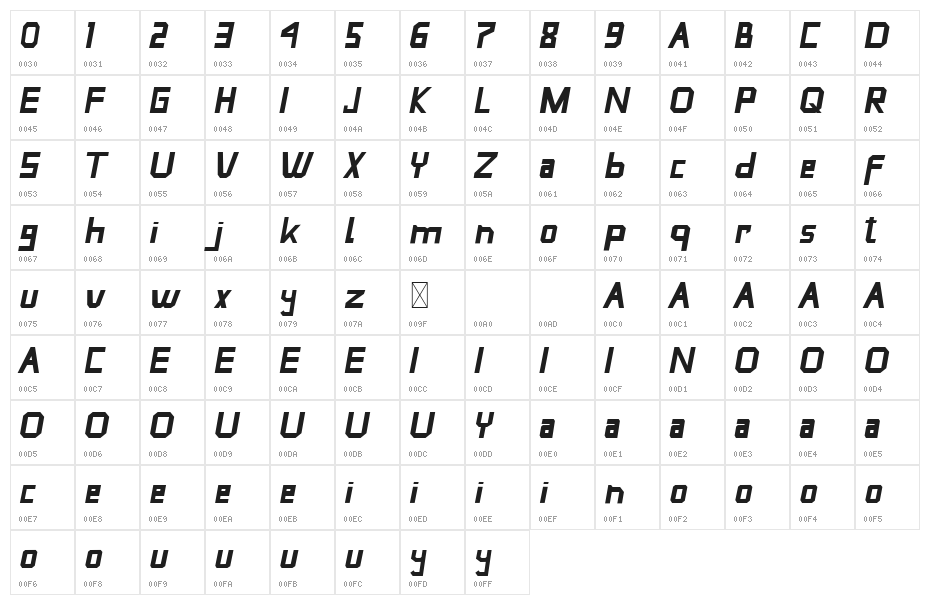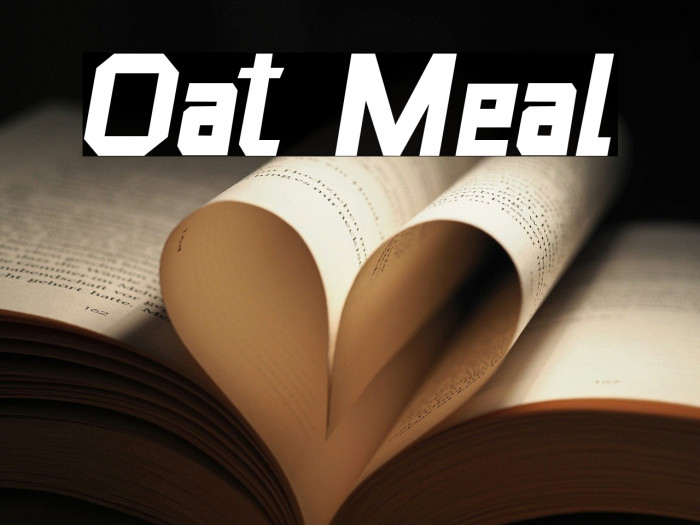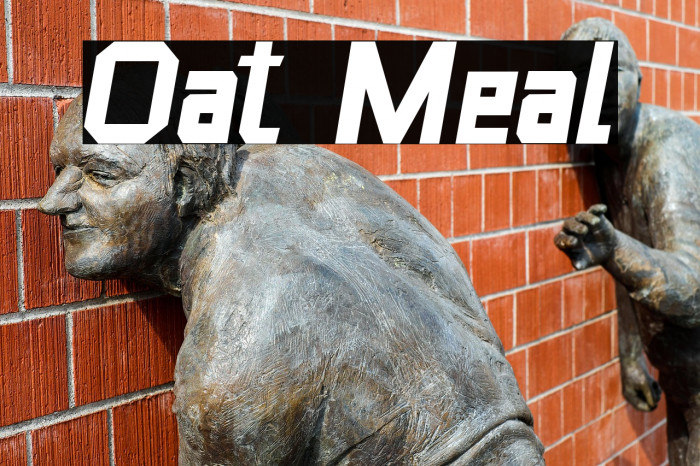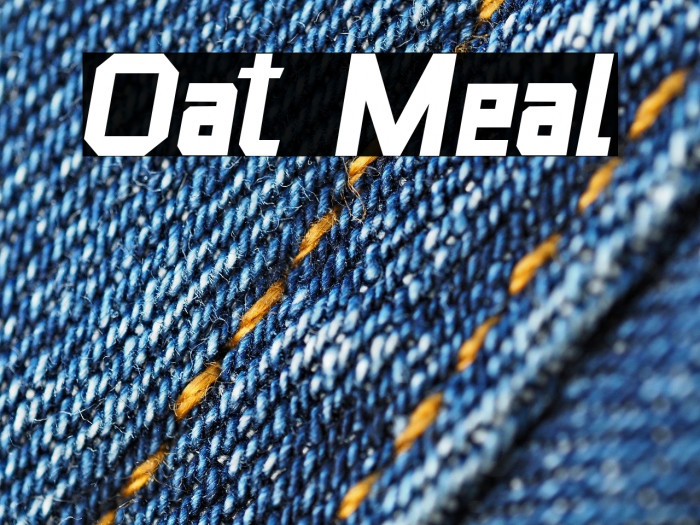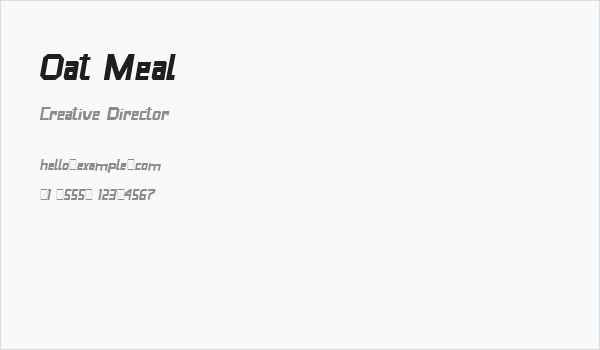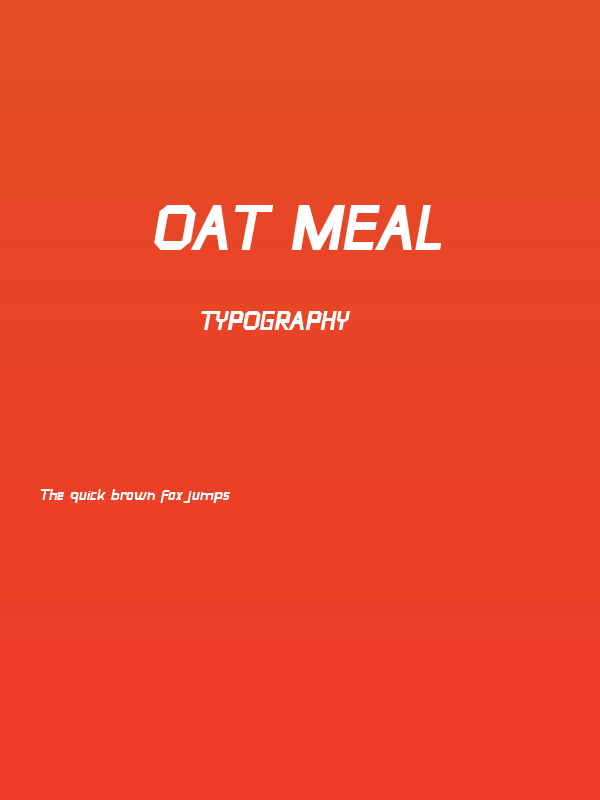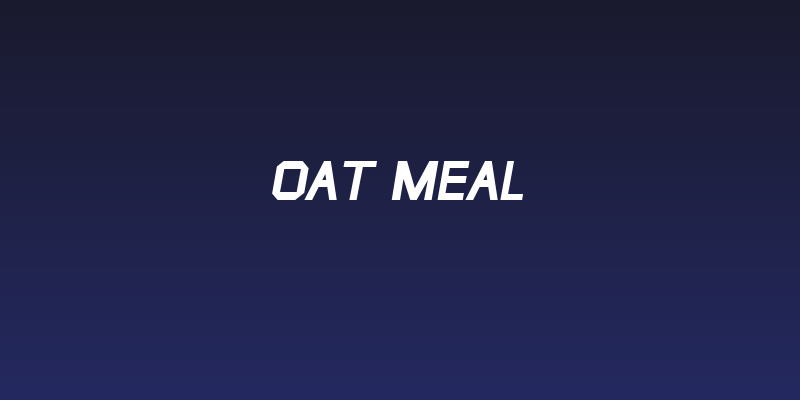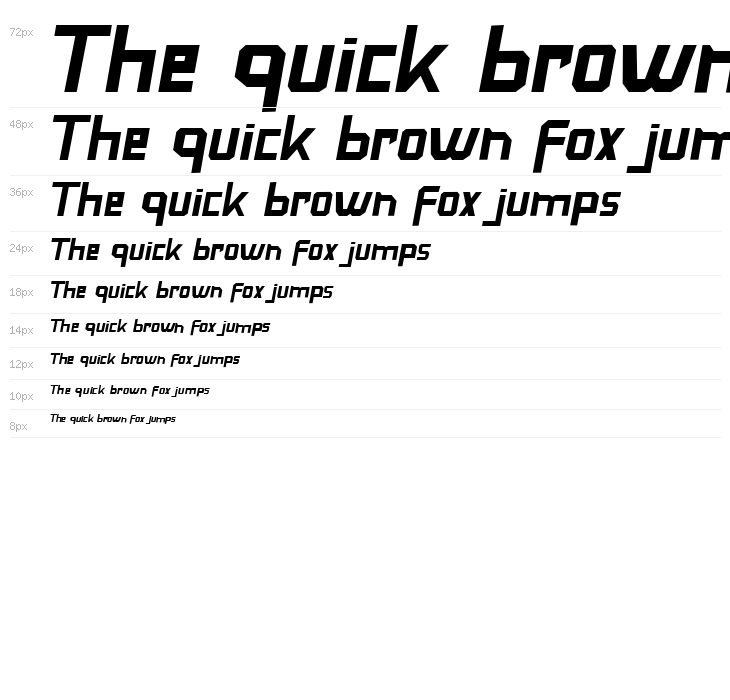
Oat Meal Font
Oat Meal Description
This font features a bold and angular design, characterized by its sharp edges and geometric shapes. The uppercase letters are particularly striking, with a futuristic and dynamic appearance that suggests movement and energy. The lowercase letters maintain the same angular style, ensuring consistency across the typeface. Numbers are equally bold and geometric, making them stand out clearly. The special characters are designed to match the overall aesthetic, providing a cohesive look. This font is ideal for projects that require a modern and edgy feel, such as technology branding, sports team logos, or dynamic advertising campaigns.